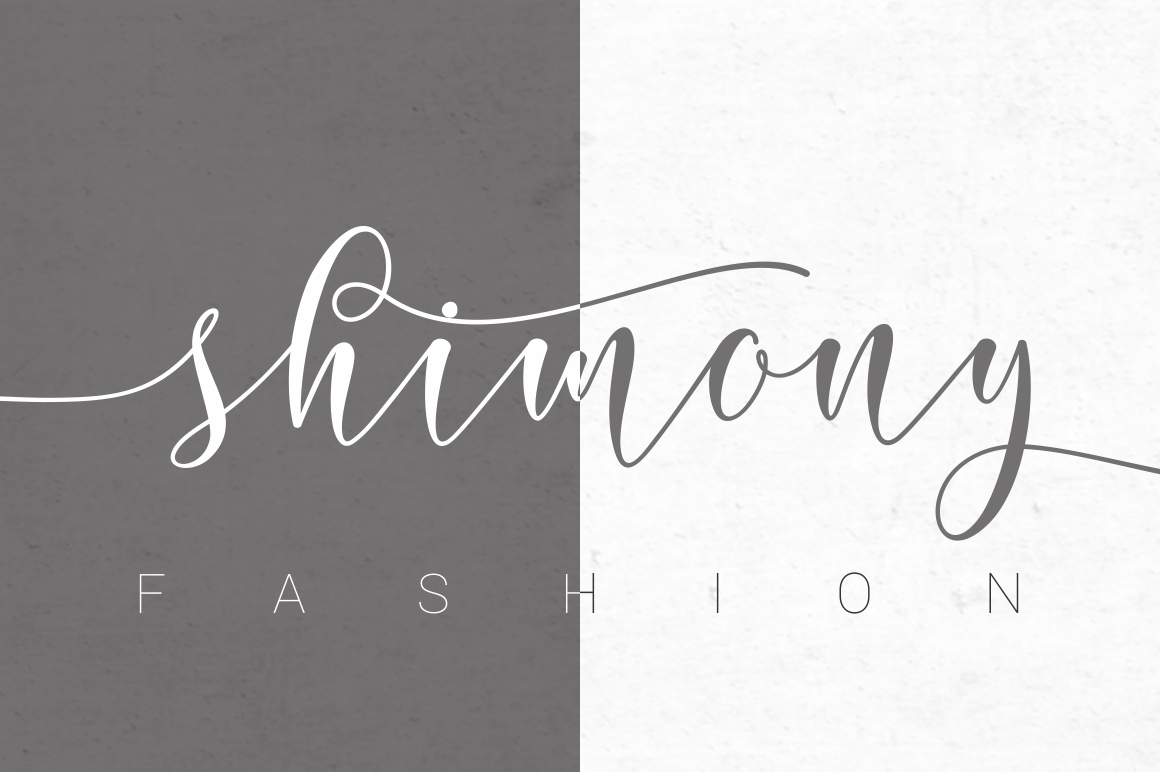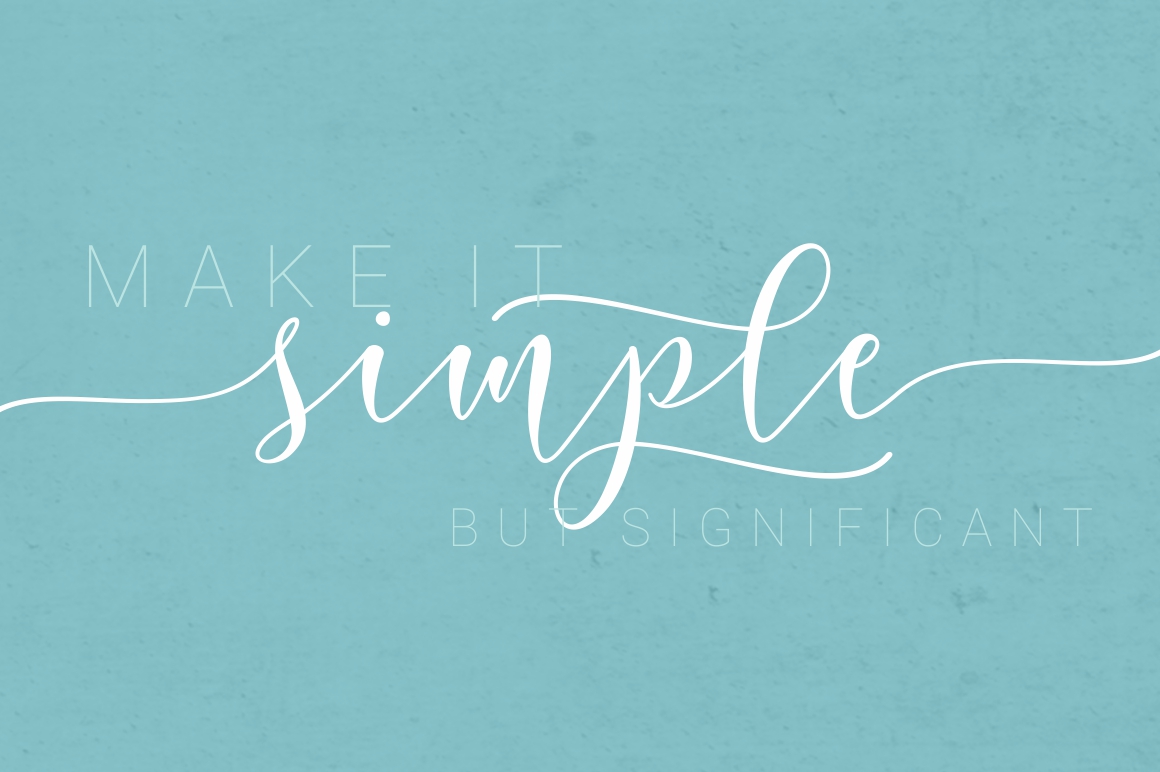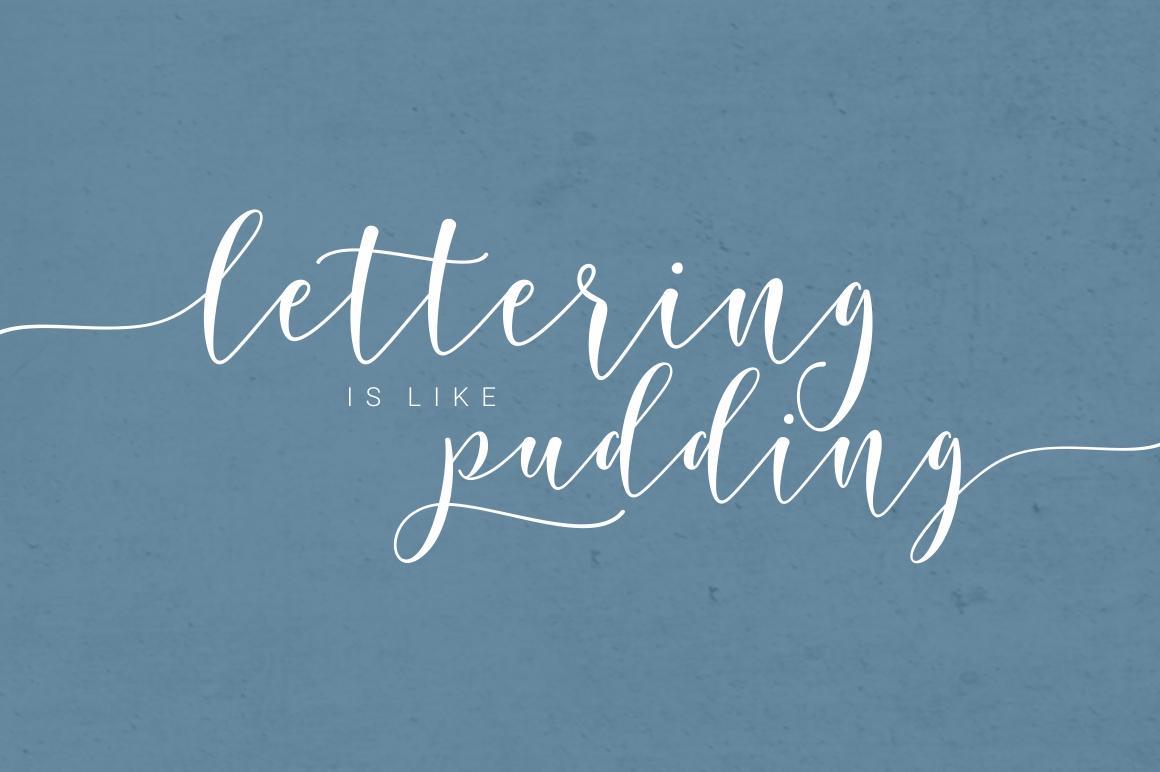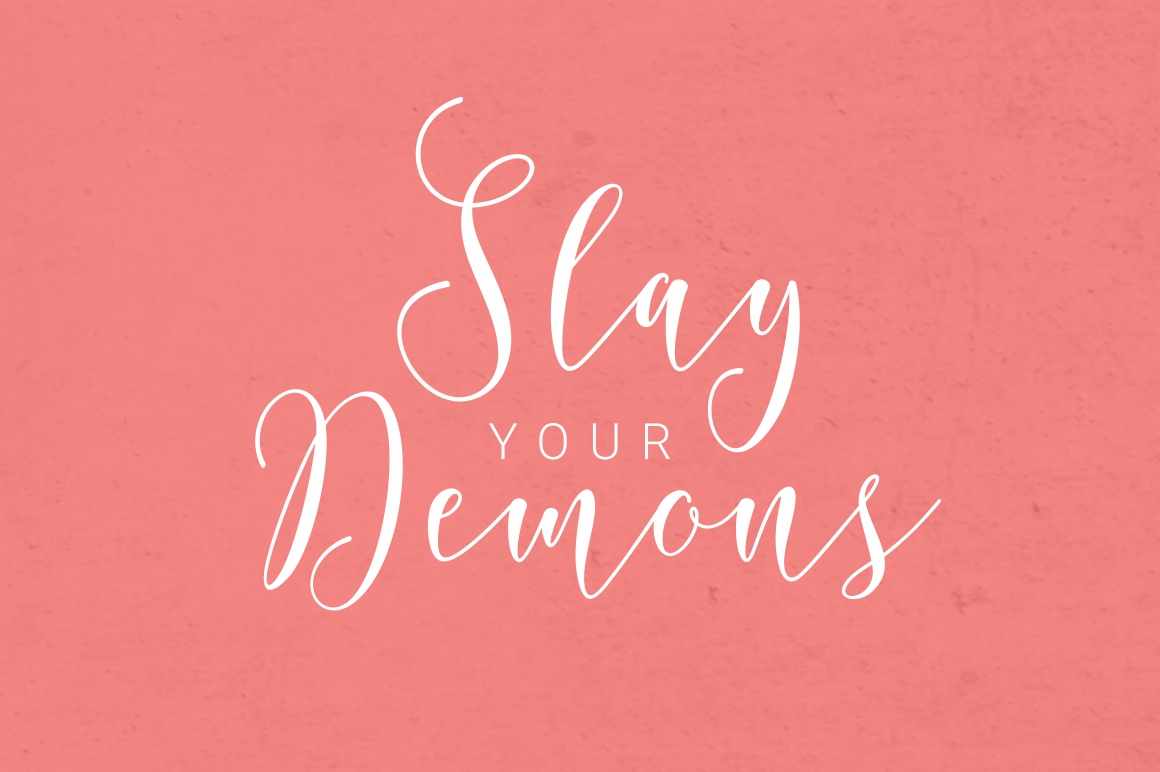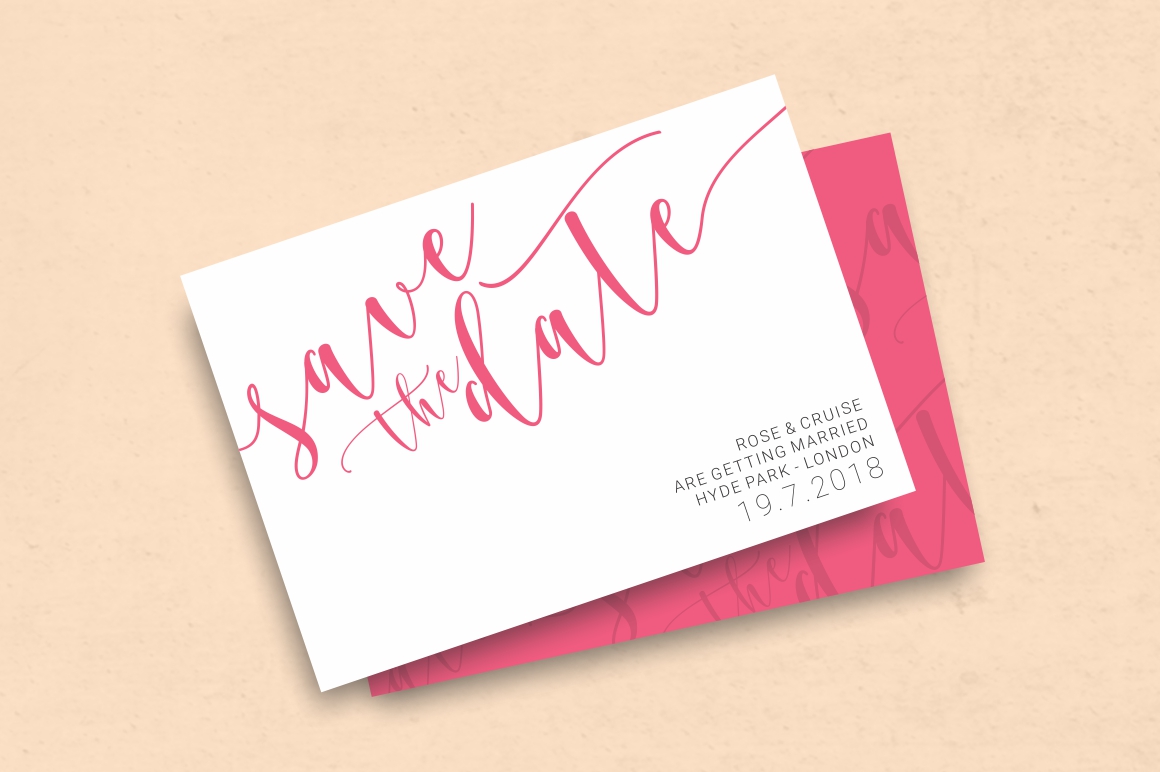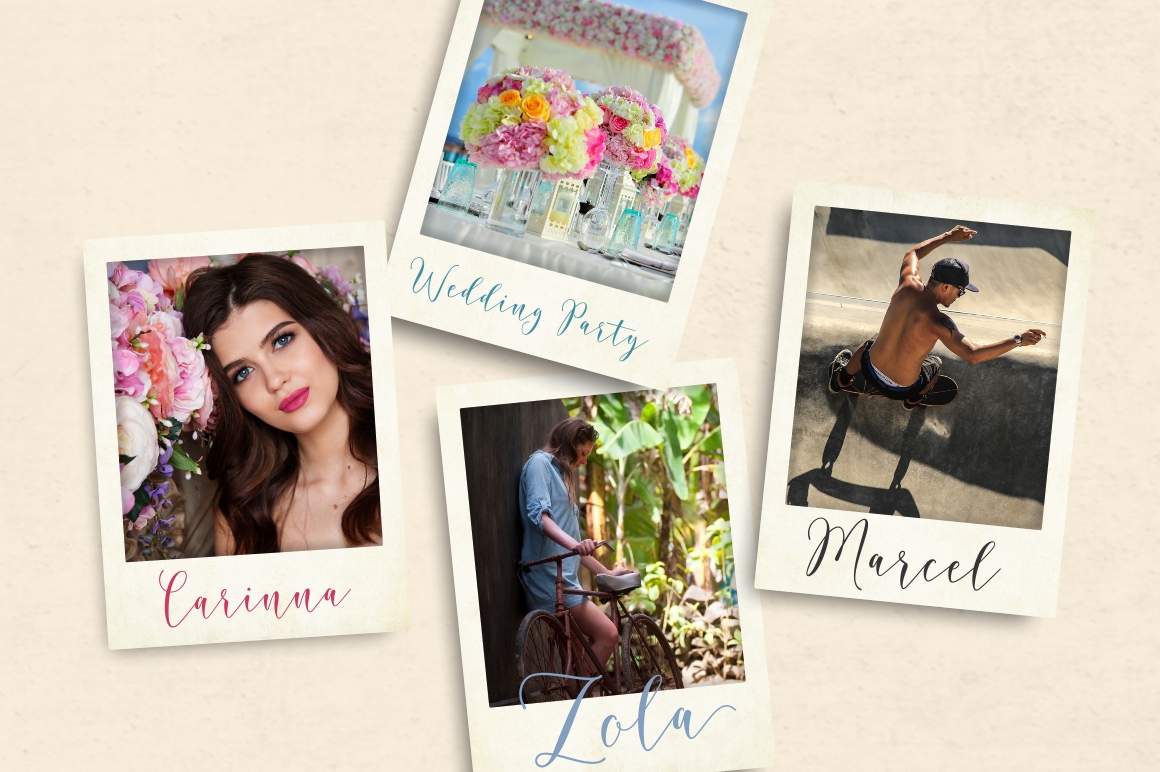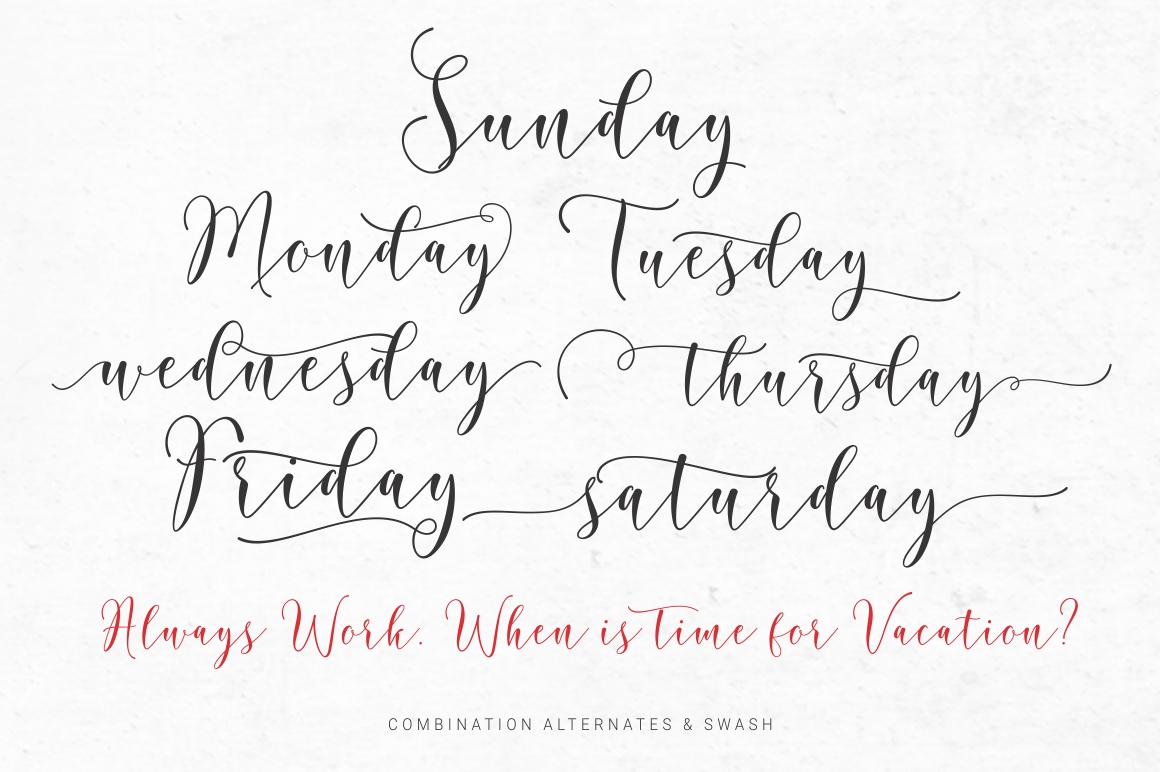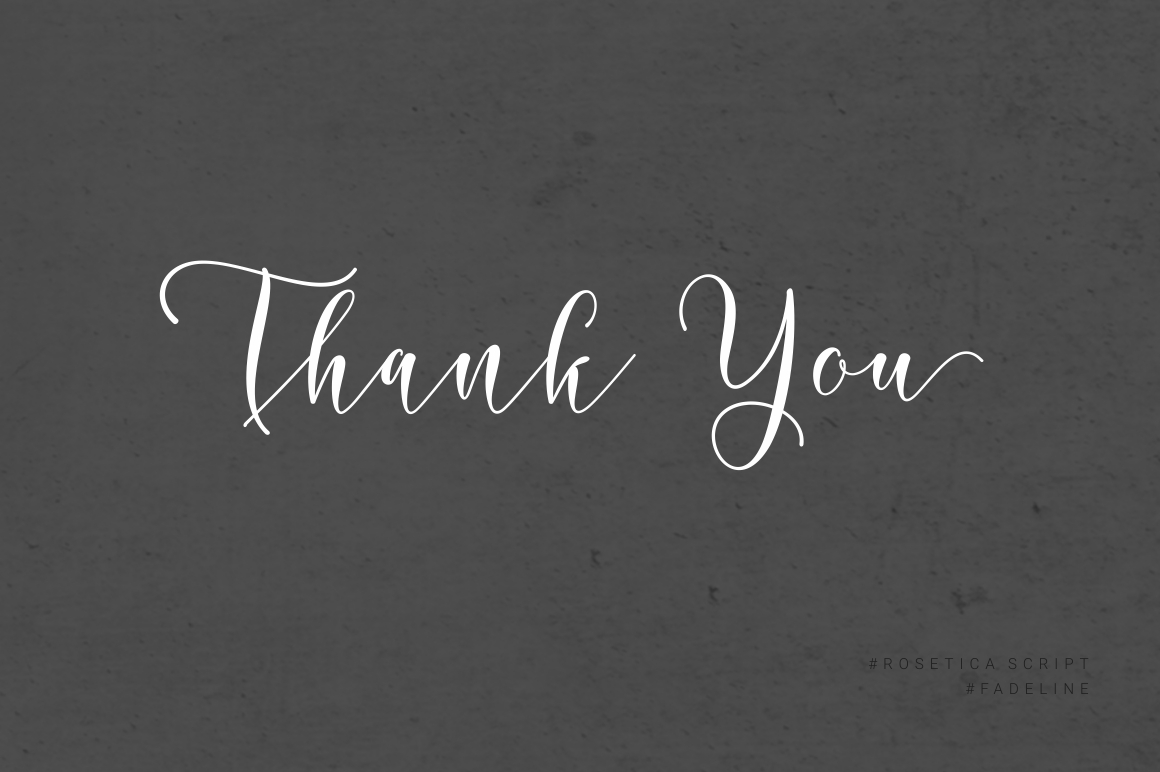
HomeScript FontsRosetica Font Script Fonts Rosetica Font FacebookXPinterestWhatsApp Rosetica Font Poster 2 Rosetica Font Poster 3 Rosetica Font Poster 4 Rosetica Font Poster 5 Rosetica Font Poster 6 Rosetica Font Poster 7 Rosetica Font Poster 8 Rosetica Font Poster 9 About Rosetica Font Rosetica is a smooth script font created by FadeLine. The font comes packed with over 700 unique handmade glyphs. DOWNLOAD NOW People also explored Guilty Font Caprizant Family Font Santiago Florentine Font Verstyle Font Smart Magic Font Cheerful New Year Font Fail in Love Font Kissing Love Font Geraspoheko Font 289 0 TagsRosetica Font Previous articleRainy Day FontNext articleDullan Font LEAVE A REPLY Cancel reply Comment: Please enter your comment! Name:* Please enter your name here Email:* You have entered an incorrect email address! Please enter your email address here Website: Save my name, email, and website in this browser for the next time I comment. Personal Use Free Hillgates Personal Use Free Read more about this font Child Witch Personal Use Free Read more about this font Earwig Factory Personal Use Free Read more about this font Blue Highway Personal Use Free Read more about this font BLOG Transform Your Website: Elevate Your Typography with 7 Best Web Font Generators Are you ready to transform your website's typography from ordinary to extraordinary? Great! Today, we're diving into the world of web font generators, which... Where to Buy American Fonts Online in 2024 Top 10 Handwritten Fonts That Elevate Your Designs Best Fonts for T-Shirt Design – Top 2025 Picks